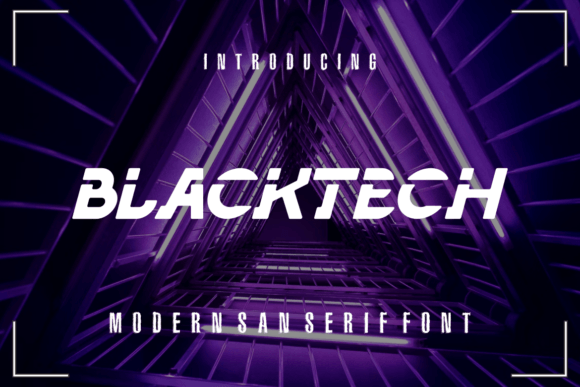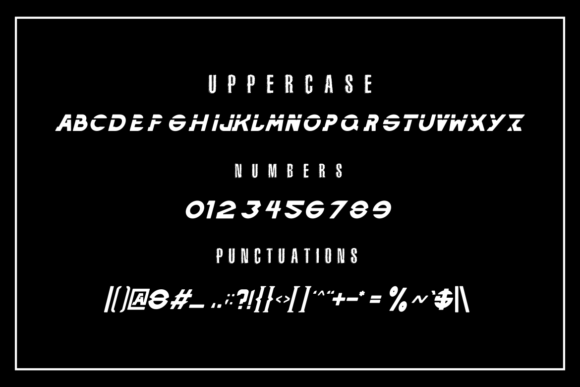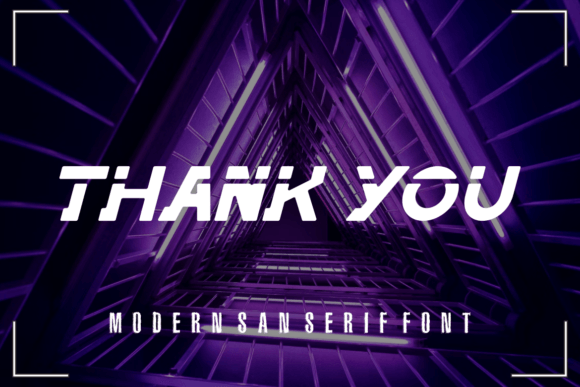
Introducing Blacktech Font: The Ultimate Sci-Fi Sans Serif
In the world of design, fonts play a crucial role in conveying the tone and aesthetic of a project. For designers and crafters looking to add a touch of futurism and innovation to their work, the Blacktech font is an excellent choice. This modern sans serif font is specifically designed to bring a sci-fi vibe to your favorite designs, making it perfect for a wide range of applications.
What is Blacktech Font?
Blacktech is a sleek and contemporary sans serif font that exudes a sense of boldness and innovation. Its clean lines, geometric shapes, and futuristic feel make it an ideal choice for designers who want to create a lasting impression. The font’s modern aesthetic is inspired by the latest technological advancements, making it perfect for projects that require a sci-fi touch.
Key Features of Blacktech Font
- Modern and Futuristic Design: Blacktech font boasts a cutting-edge design that is sure to turn heads. Its sleek lines and geometric shapes give it a futuristic feel that is perfect for sci-fi themed projects.
- Bold and Innovative Vibe: The font’s bold and innovative vibe makes it perfect for designers who want to create a lasting impression. Whether you’re working on a logo, poster, or website, Blacktech font is sure to make your design stand out.
- Sans Serif Design: The font’s sans serif design makes it easy to read and versatile. It can be used for a wide range of applications, from digital media to print materials.
- Highly Legible: Despite its bold and futuristic design, Blacktech font is highly legible, making it perfect for body text and headings.
Use Cases for Blacktech Font
Blacktech font is versatile and can be used for a wide range of applications, including:
- Logo Design: The font’s bold and innovative vibe makes it perfect for logo design. Create a lasting impression with a custom logo that showcases your brand’s personality.
- Poster Design: Blacktech font is ideal for poster design, especially for sci-fi themed projects. Its futuristic feel and bold design make it perfect for grabbing attention.
- Website Design: The font’s clean and modern design makes it perfect for website design. Use it for headings, titles, and body text to create a cohesive and futuristic look.
- Digital Media: Blacktech font can be used for a wide range of digital media, including social media graphics, video game design, and mobile app design.
Tips for Using Blacktech Font
- Use it for Headings and Titles: The font’s bold and innovative vibe makes it perfect for headings and titles. Use it to grab attention and create a lasting impression.
In conclusion, Blacktech font is a modern and futuristic sans serif font that is perfect for designers and crafters looking to add a sci-fi touch to their work. Its innovative and bold vibe makes it ideal for a wide range of applications, from logo design to website design. With its clean lines, geometric shapes, and highly legible design, Blacktech font is sure to make your design stand out.